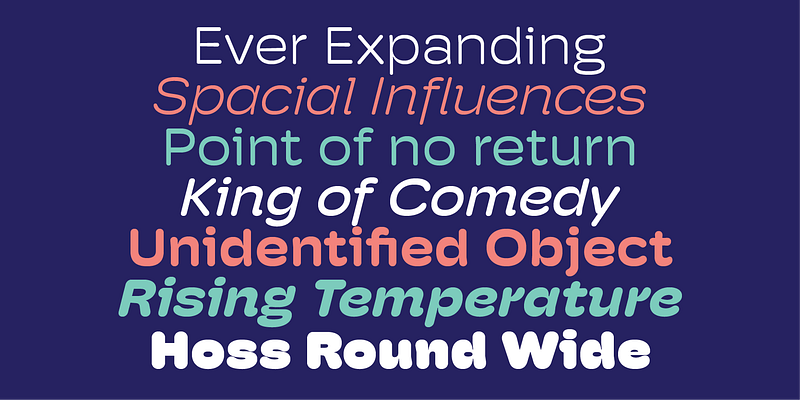
Hoss Round Wide Font Free Download
Hoss Round Wide Font Free Download is a bold, modern sans-serif typeface with soft rounded edges and an extended width that gives it a strong yet friendly personality. Designed for maximum visual impact, it’s perfect for logos, headlines, posters, packaging, and branding projects that need a confident, contemporary look with an approachable vibe.
The wide stance and smooth curves of Hoss Round Wide make it ideal for both digital and print applications. It pairs well with minimalist design styles and is fully compatible with tools like Adobe Illustrator, Figma, Photoshop, and Canva.